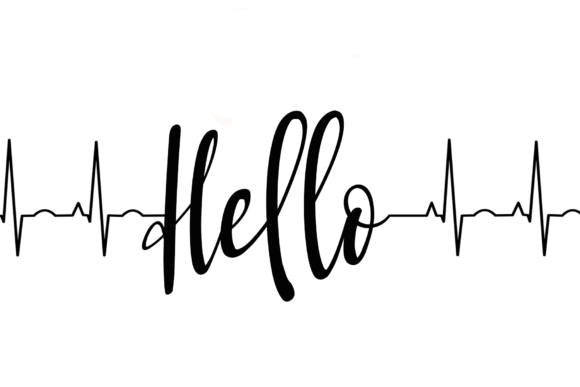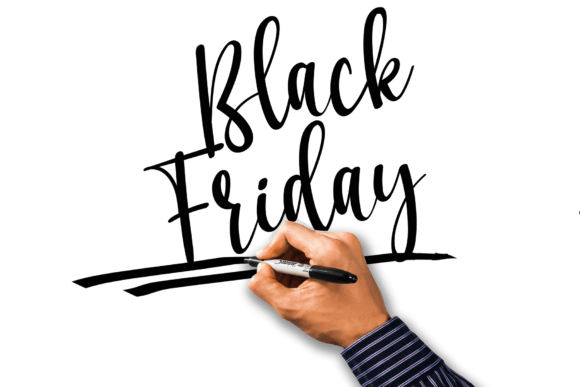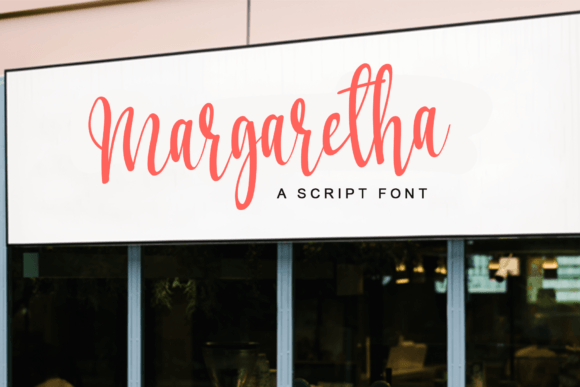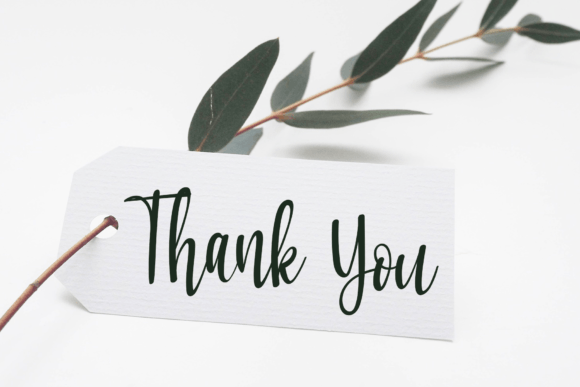
Introduction to Hello Handwriting Font
Have you ever found yourself sitting at your desk, surrounded by scraps of paper, paint, and glue, and suddenly, a spark of creativity ignites? For many designers, this moment is the start of a new project, and the right font can be the key to unlocking its full potential. Enter the Hello Handwriting Font, a stylish and versatile handwritten font that’s about to become your new best friend.
With its timeless classic calligraphy inspiration and impeccable form, the Hello Handwriting Font is the perfect addition to any creative project. Whether you’re working on a design for a free download or a high-quality print, this font is sure to elevate your work and make it stand out. Its balanced and varied style makes it a valuable resource for designers looking to add a touch of elegance to their designs.
Get ready to say hello to a new era of creative expression with the Hello Handwriting Font.
Key Features of Hello Handwriting Font
- High-quality, unique and customizable handwriting font perfect for creative projects.
- Designed with a high level of detail and nuance, making it suitable for a wide range of design applications.
- Features a unique, handwritten style that can add a personal touch to any design project.
Honest Review: Hello Handwriting Font
I recently had the chance to work with the Hello Handwriting Font, and I must say it’s been a game-changer for my creative projects. This font is perfect for designers looking to add a personal touch to their designs.
- ✨ The font is extremely versatile and can be used for a wide range of design projects, from social media graphics to wedding invitations.
- ✨ The font is available in various styles, making it easy to find the perfect fit for your design.
- ✨ The high-quality design makes it suitable for printing and digital use.
However, there are a few limitations to consider. The font may not be suitable for designs that require a transparent background, as the font itself is not transparent.
- ⚠️ Limited customization options, which may not be ideal for designers who require a high level of customization.
- ⚠️ May not be suitable for designs that require a lot of text manipulation, as the font can be a bit cumbersome to work with.
Overall, I’m impressed with the Hello Handwriting Font. It’s a great design resource that’s perfect for designers looking to add a personal touch to their designs. While it may have a few limitations, it’s definitely worth considering for your next creative project.
To get the most out of the Hello Handwriting Font, try experimenting with different font sizes, colors, and combinations with other fonts.
The Hello Handwriting Font is commonly used for:
- Invitations and event designs
- Personalized gifts and cards
- Brand identity and marketing materials
Alternatives to Hello Handwriting Font
Alegreya Script
Alegreya Script is a high-quality, elegant handwriting font perfect for creative projects. It features a transparent background, making it ideal for use on any background color. This font is great for designers looking for a sophisticated and refined look. Compared to Hello Handwriting Font, Alegreya Script has a more classic and timeless feel, making it suitable for formal designs.
Great Vibes is a free download handwriting font ideal for creative projects. It has a unique, high-quality design that is perfect for adding a personal touch to designs. This font features a transparent background, making it versatile for use on any background color. Compared to Hello Handwriting Font, Great Vibes has a more casual and playful feel, making it suitable for informal designs.
Carolyna Pro is a high-quality, modern handwriting font suitable for creative projects. It features a transparent background and a unique, elegant design. This font is great for designers looking for a stylish and sophisticated look. Compared to Hello Handwriting Font, Carolyna Pro has a more modern and trendy feel, making it suitable for contemporary designs.